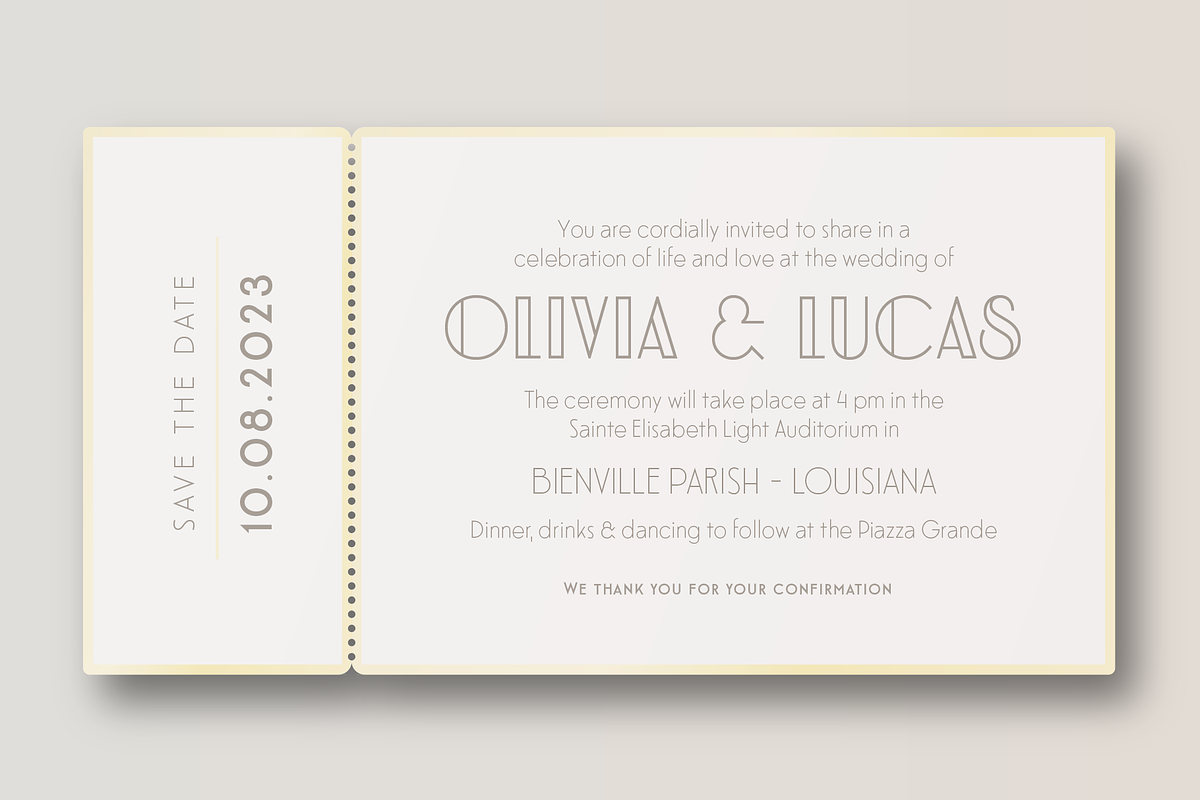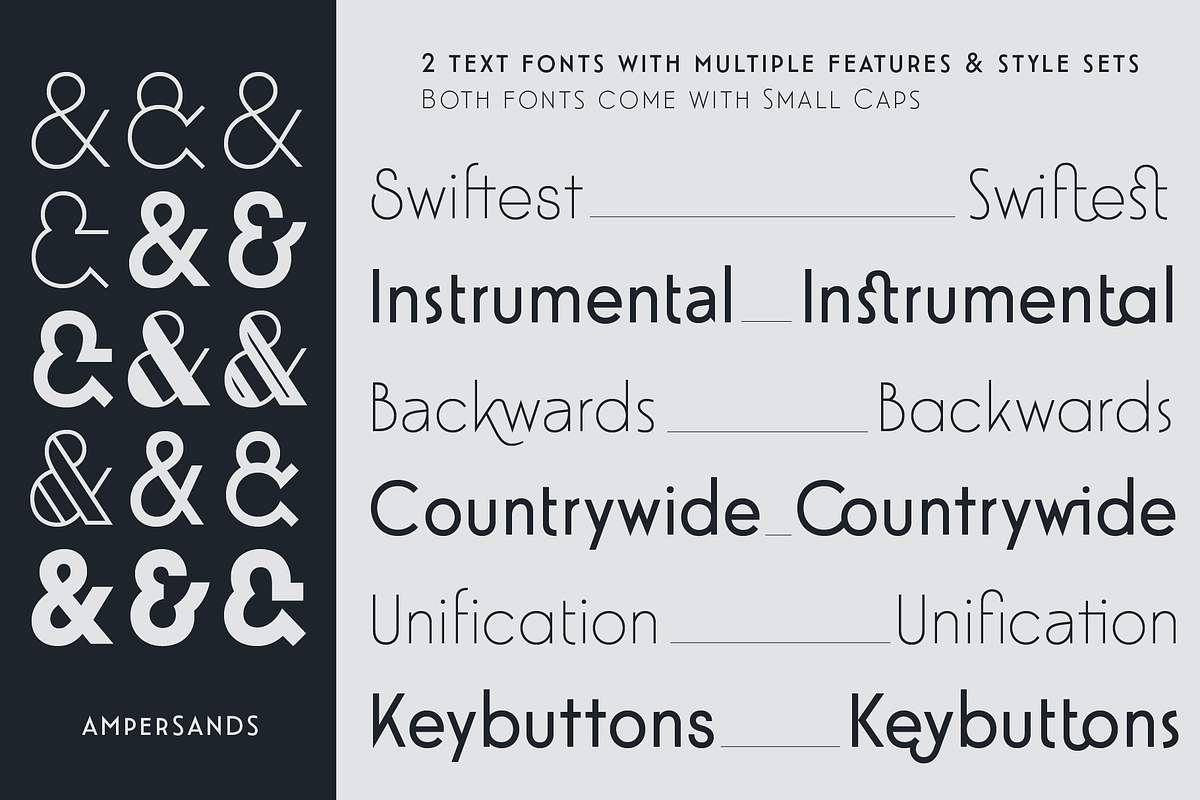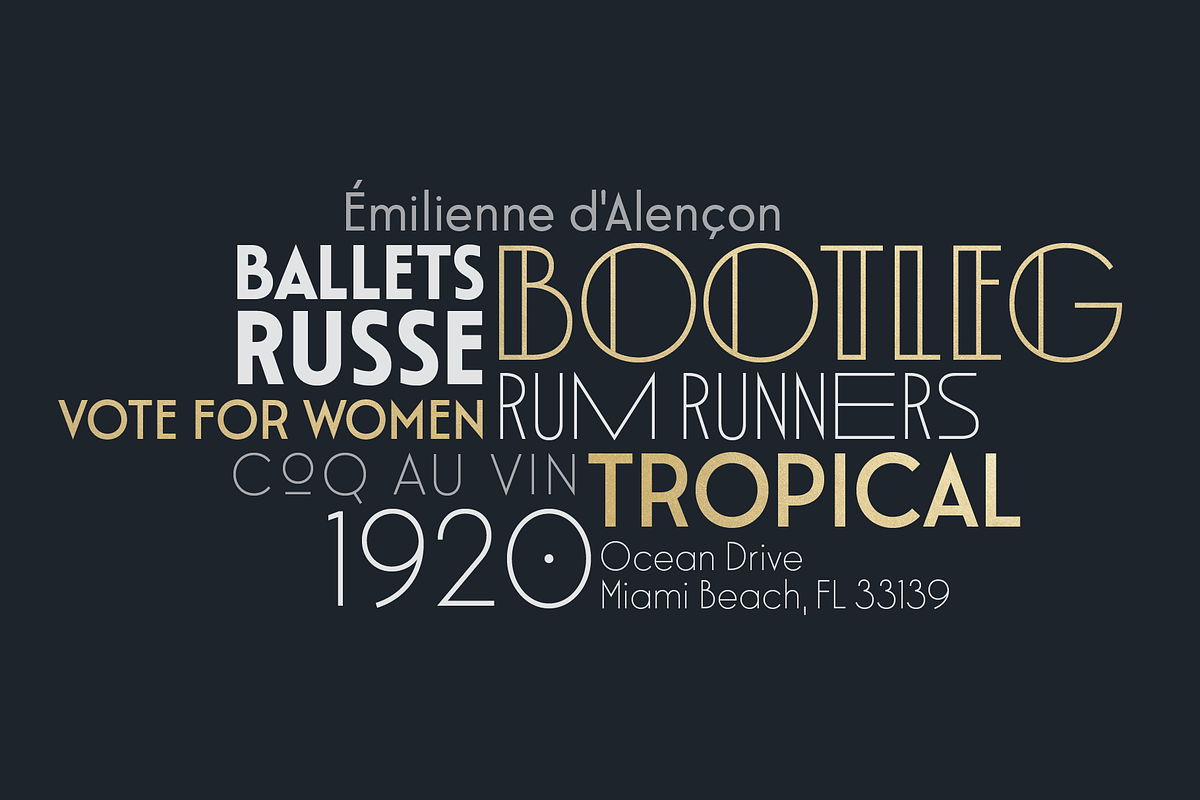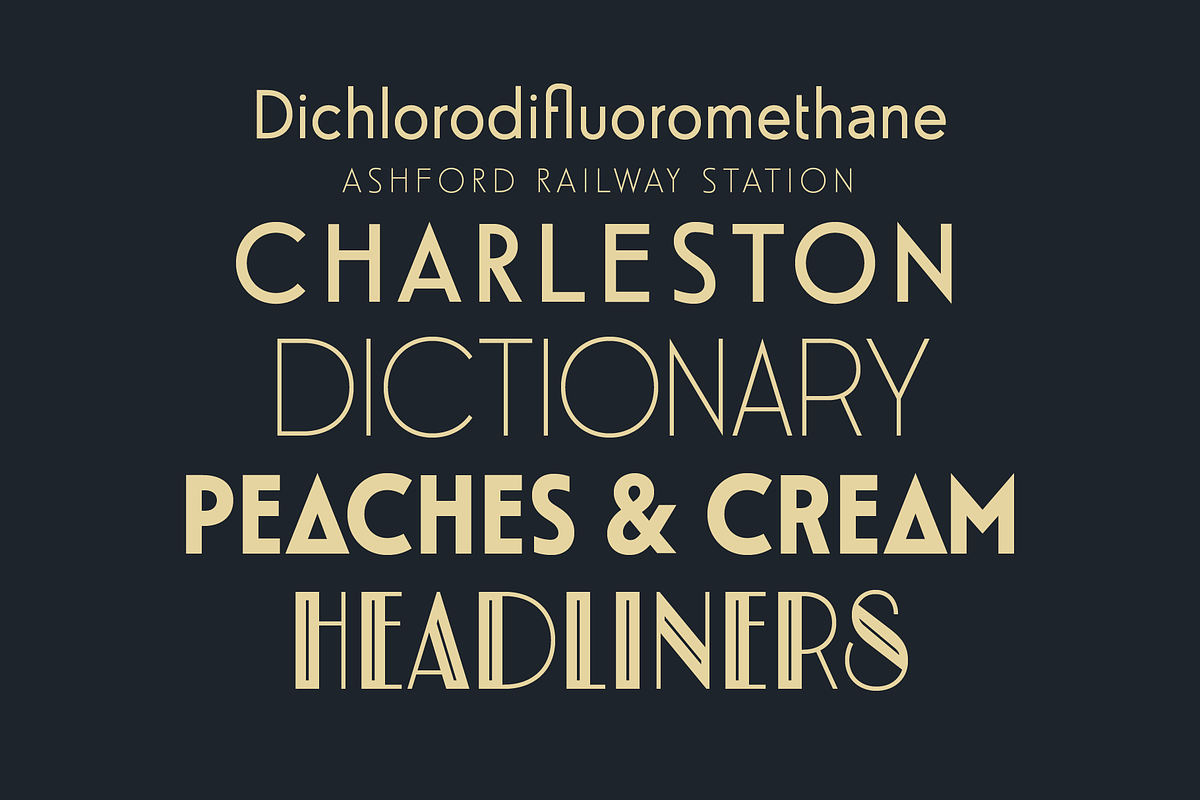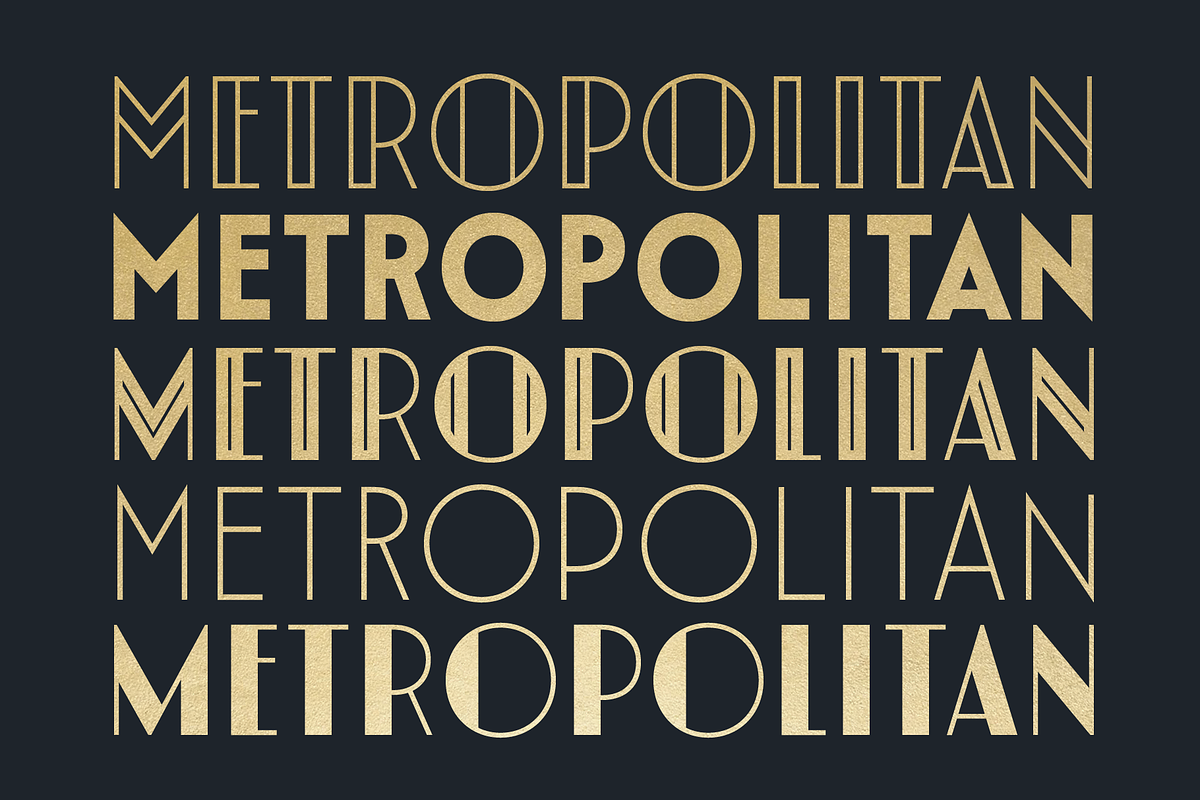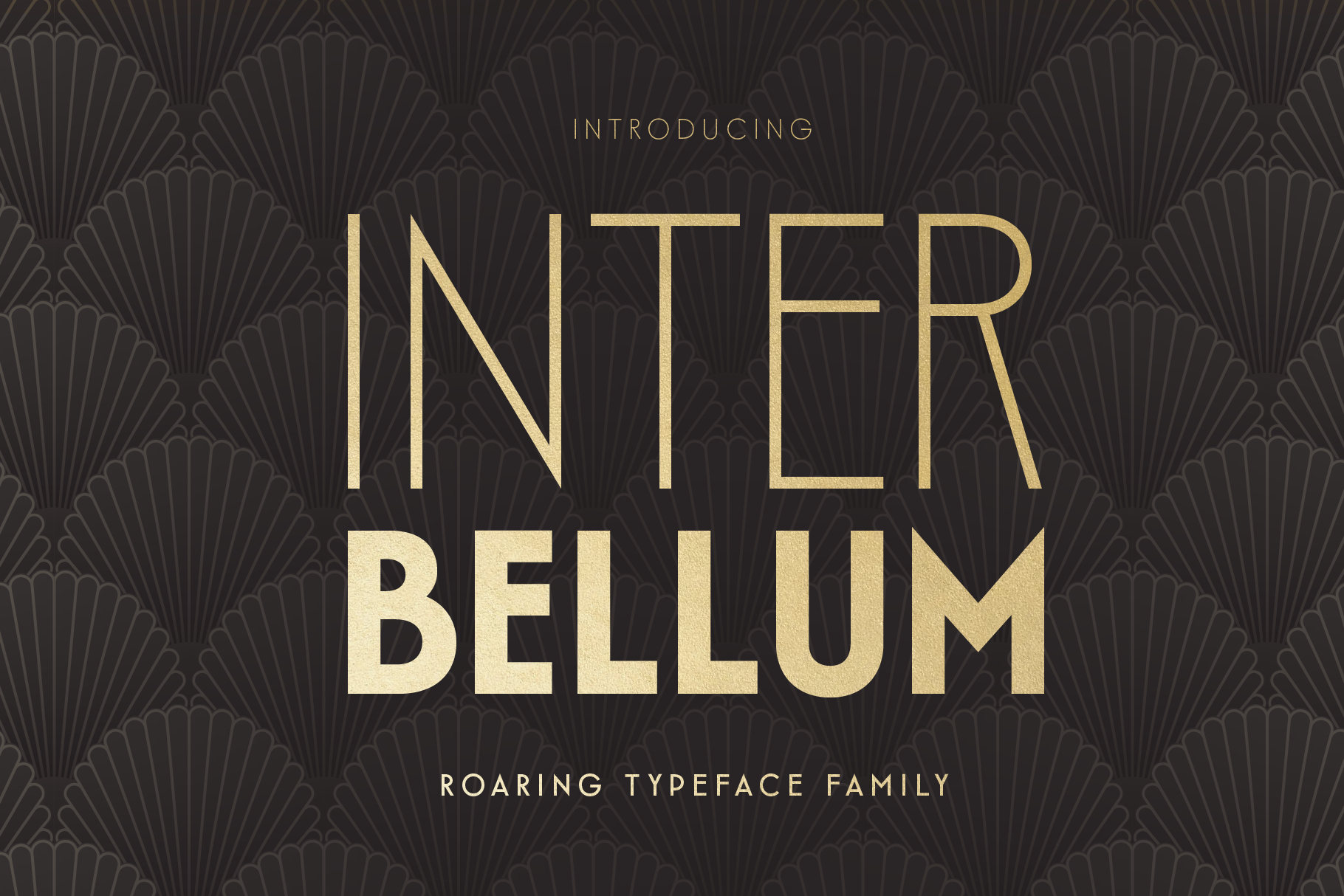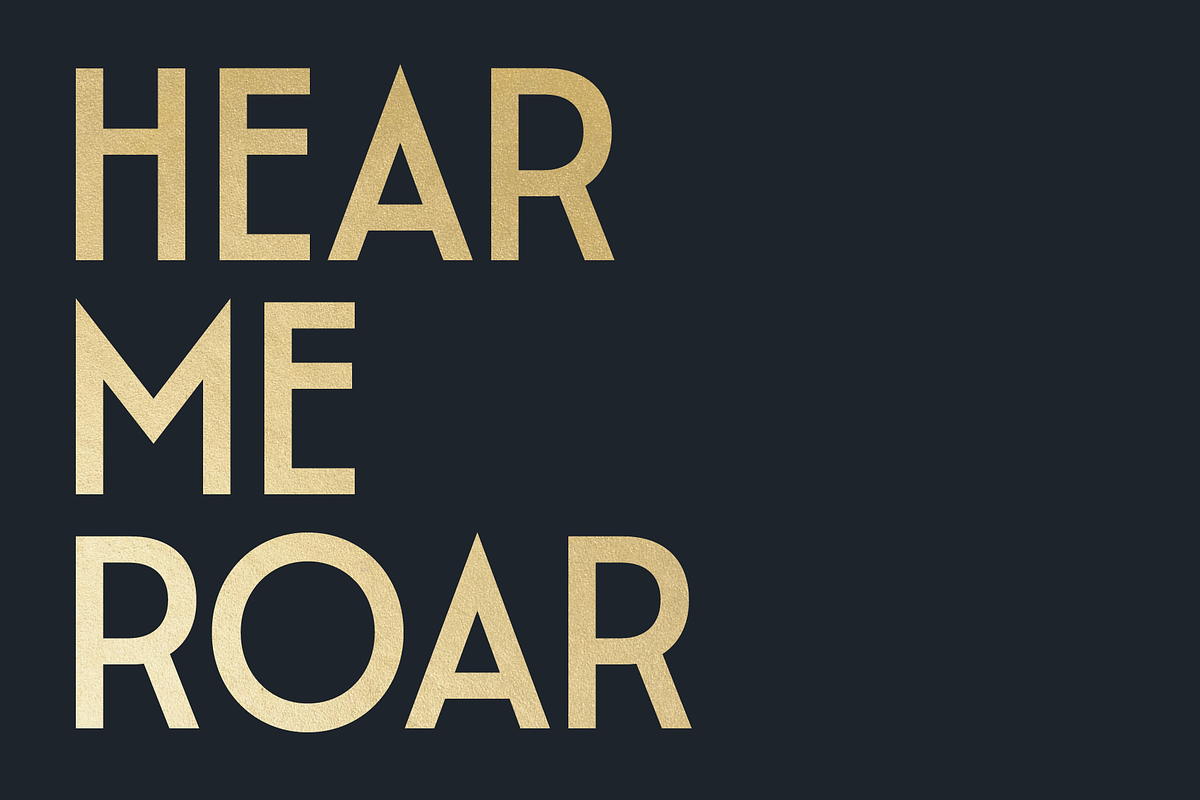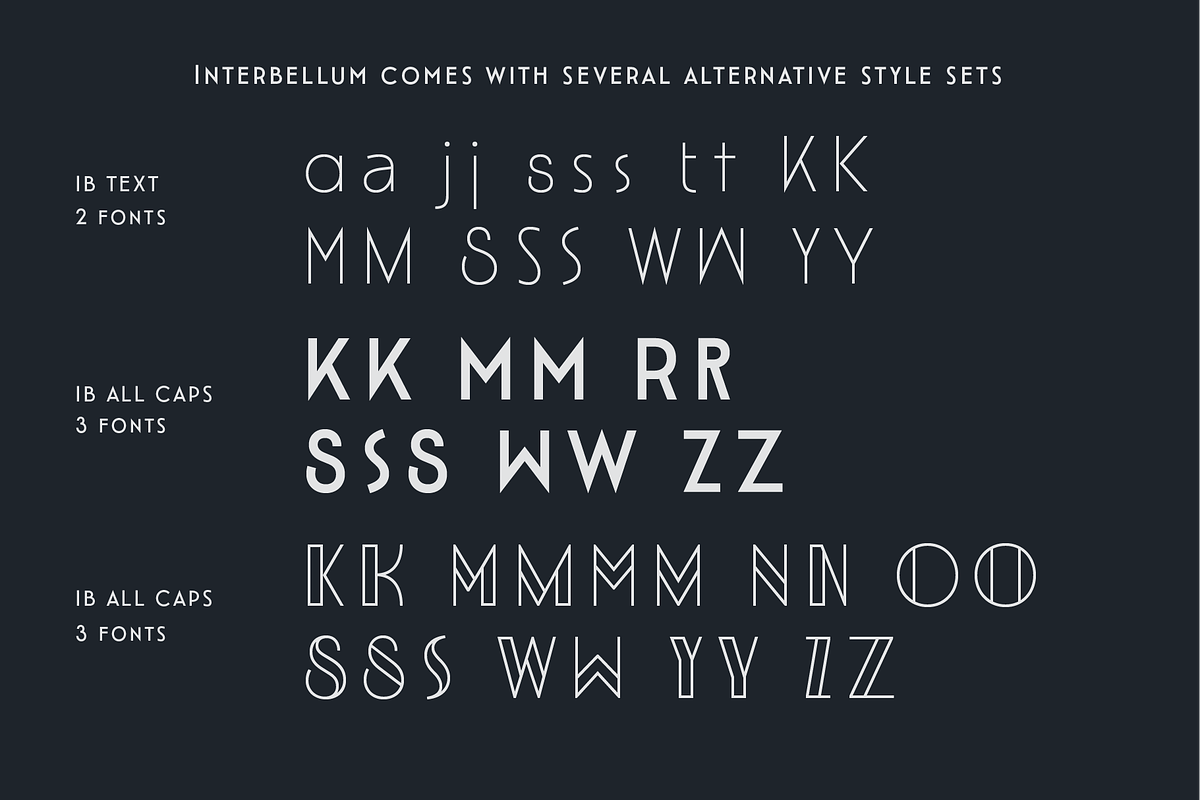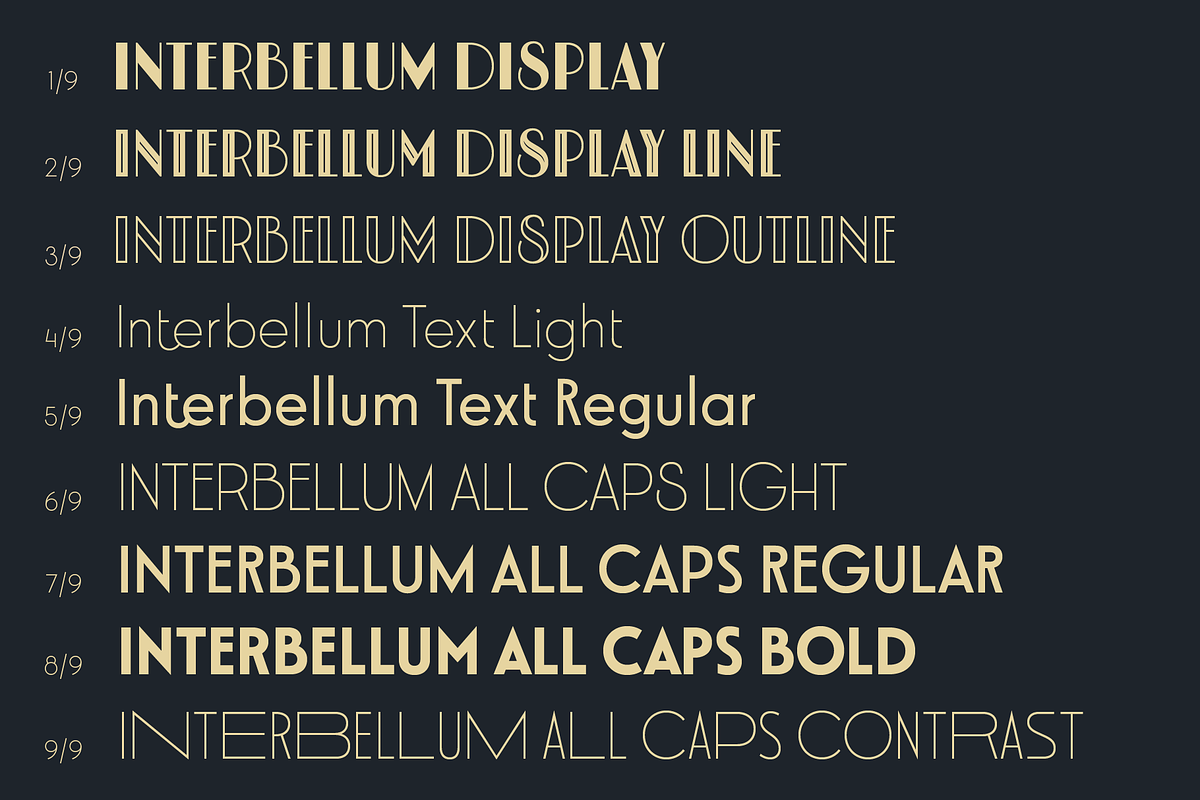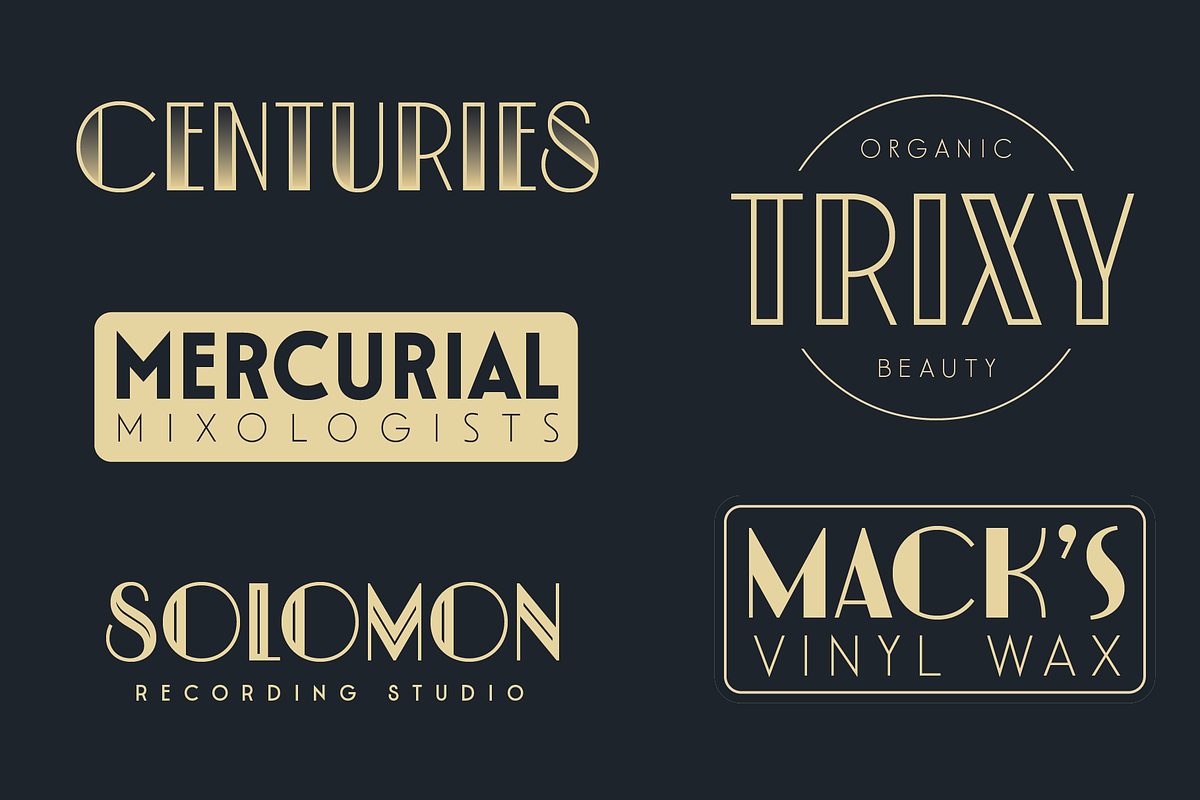
Interbellum Font Family
Interbellum is an Art Deco inspired font family. In combination, you can easily give your designs a bold, yet elegant look. And by using the many different style sets, it is able to stand tall in all sorts of designs. Although it was inspired by the roaring 20s, we still think of Interbellum as an everlasting time traveller that will definitely impress your clients.
Text Light & Text Regular both contain 832 glyphs and SmallCaps letters The Display Fonts all contain 659 glyphs All Caps Light contains 603 glyphs All Caps Regular contains 581 glyphs All Caps Bold contains 626 glyphs All Caps Light Contrast 606 glyphs
The reason. why these numbers differs is due to extra style sets, which are assigned to each proper weight in particular. The All Caps Light Contrast font can transform all letters (except for I) from a narrow glyph into a wider glyph. In case of C, O & G, they change into an underlined version. It's a very untraditional design, but a lot of fun to play with!